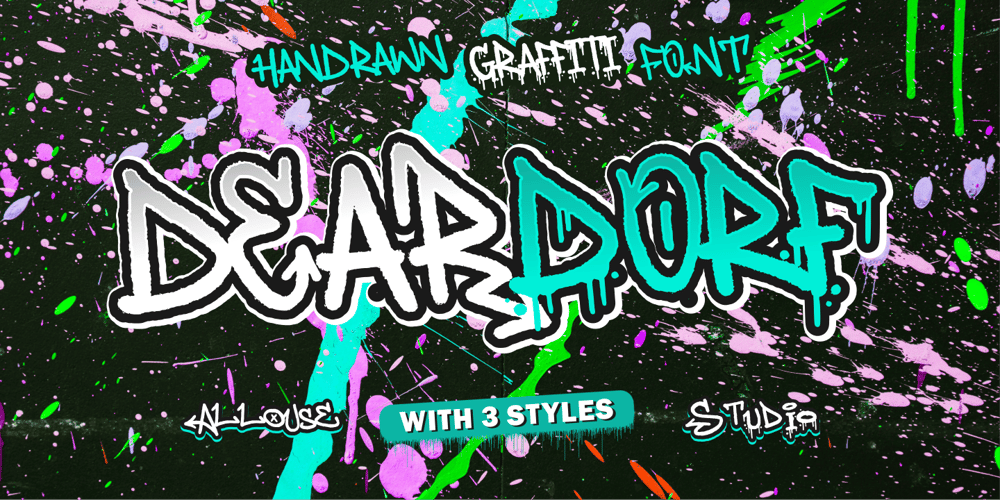
Deardorf Font Family was designed by Fachrizal Yusuf and published by Allouse Studio. Deardorf contains 3 styles and family package options. Proudly Presenting, Deardorf a Handdrawn Graffitti Font with 3 styles to fulfill your need.Deardorf is perfect for any tittles, logo, product packaging, branding project, megazine, social media, wedding, or just used to express words above the background.Each style also come with Multi-Lingual Support.Enjoy the font, feel free to comment or feedback, send me PM or email. Thank You!